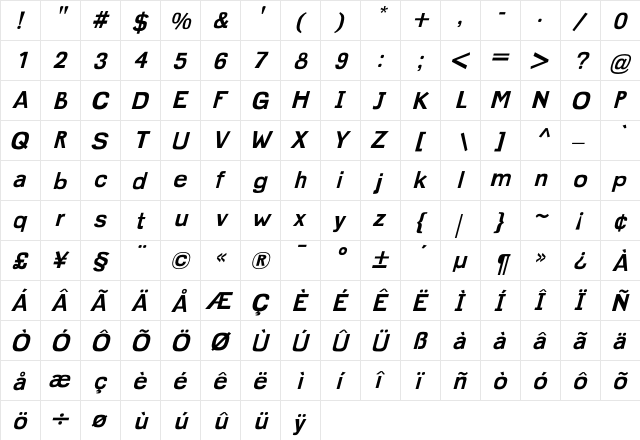
Imperfect BoldOblique Font Preview
Design Context for Imperfect Typeface
Imperfect takes a measured approach to typography — its balanced proportions and neutral character make it a reliable workhorse for both digital and print work. The dynamic lean of this cut emphasises speed and emphasis in any layout. The heavy weight commands attention and anchors typographic hierarchies.
Pro Tip: Try Imperfect for annotation and caption copy alongside an upright companion — the contrast in angle creates a dynamic but ordered typographic system.